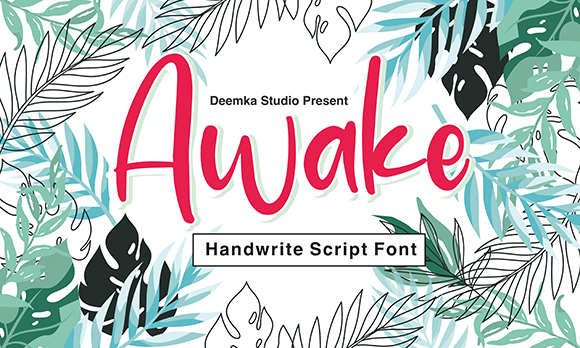
The Moment of Truth: Finding the Perfect Font
I still remember the frustration of working on a design project, hours poured into crafting the perfect layout, only to hit a roadblock: finding the right font. My client wanted something that felt friendly, approachable, and uniquely sweet. I scoured the internet, tried font after font, but nothing seemed quite right. That was until I stumbled upon the Awake font. It was like a breath of fresh air – natural, charming, and versatile. In this article, I’ll share my experience with the Awake font, its features, and how to make the most of it in your designs.
Awake Font: A Sweet and Friendly Companion
Awake is a sweet and friendly handwritten font that has captured my heart. Its natural and unique style makes it incredibly fitting for a large pool of designs. The only limit is your imagination! Whether you’re working on a branding project, crafting a social media graphic, or creating a beautiful journal spread, Awake is an excellent choice.
- ✨ Unique and natural handwritten style
- ✅ Highly legible, even at smaller sizes
- 🌈 Versatile and adaptable to various design contexts
- 💻 Works beautifully with OpenType features and glyphs
While Awake is an amazing font, there are a few things to keep in mind:
- ⚠️ Limited availability of extended language support
A Practical Guide: Using Awake in Your Designs
The Story Behind Awake
Awake was designed with the intention of creating a friendly, approachable font that would bring a touch of warmth to any design. The designer aimed to craft a font that felt natural and unique, while still being highly legible. The result is a beautiful, handwritten font that has captured the hearts of designers and crafters alike.
Q: What makes Awake font unique?
A: Awake’s unique blend of natural and friendly characteristics makes it stand out from other fonts.
Q: Does Awake support OpenType features?
A: Yes, Awake supports OpenType features, including stylistic alternates and glyphs.